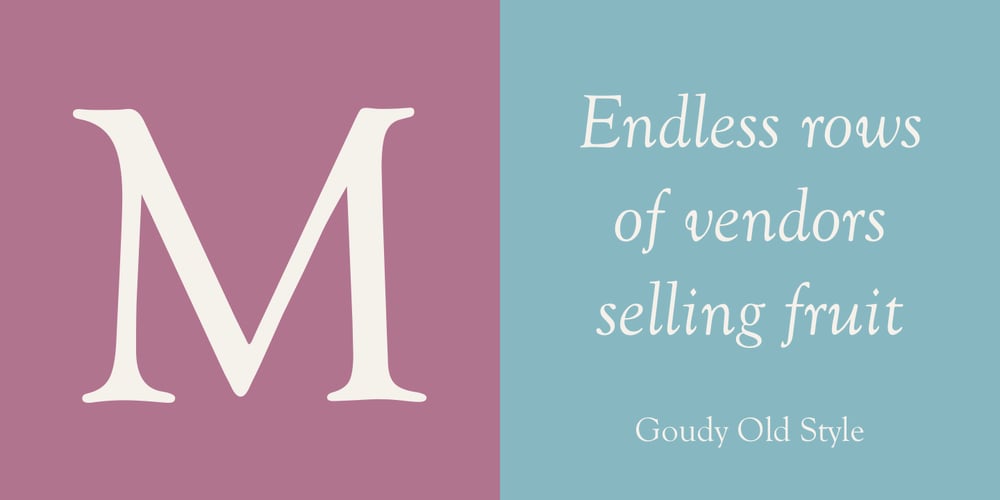
Goudy Old Style Font Family was designed by Frederic W. Goudy and published by Bitstream. Goudy Old Style contains 5 styles and family package options. Inspired by the Froben capitals believed to have been cut by Peter Schoeffer the Younger, son of Gutenberg’s apprentice, this design is neither strictly a Venetian nor an Aldine. The archaic approach and lack of the Aldine model lead us to place the face in the Venetian group. The design owes more to Goudy than to Schoeffer.